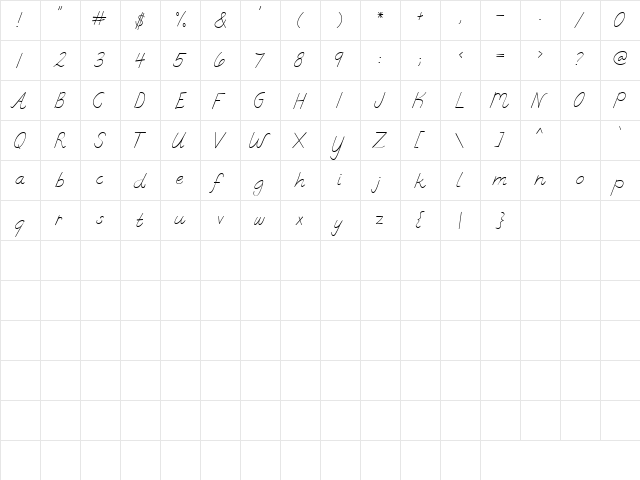
LD Italic Regular
Design Context for LD Italic Typeface
LD Italic offers clean, dependable letterforms without strong stylistic allegiance, making it a practical choice for designers who need flexibility. The slanted form adds forward momentum and visual energy.
Pro Tip: Try LD Italic for annotation and caption copy alongside an upright companion — the contrast in angle creates a dynamic but ordered typographic system.